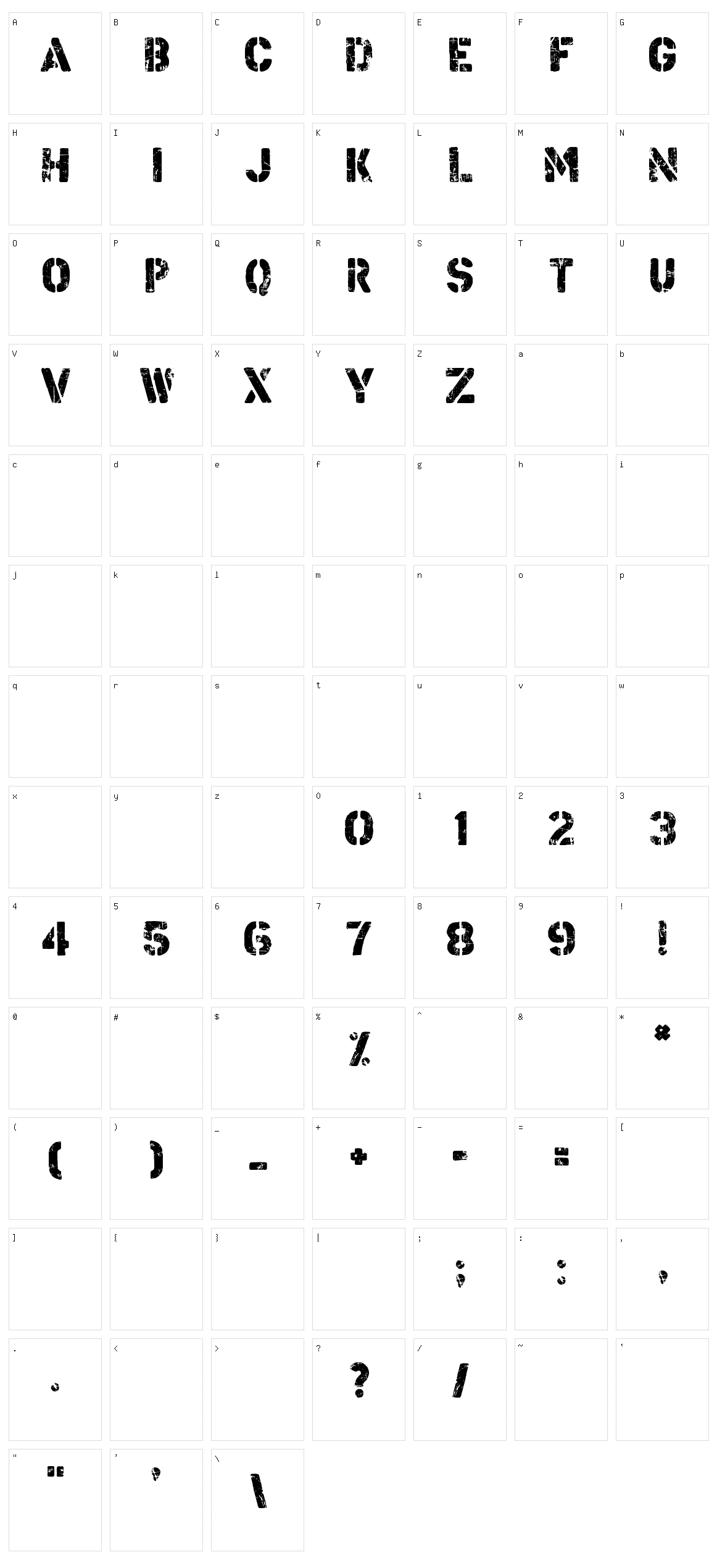
The free font Checkpoint Charlie is carefully designed by imagex, showcasing a thoughtful balance of creativity and usability and falls under the Stencil font style. When you download the ZIP file, it contains only 45.78 KB of font files, making it lightweight and quick to download. Please review the license details below to understand permitted usage and distribution rights. If license information is not available, we recommend using this font for personal projects only or contacting the author directly for commercial usage permissions.